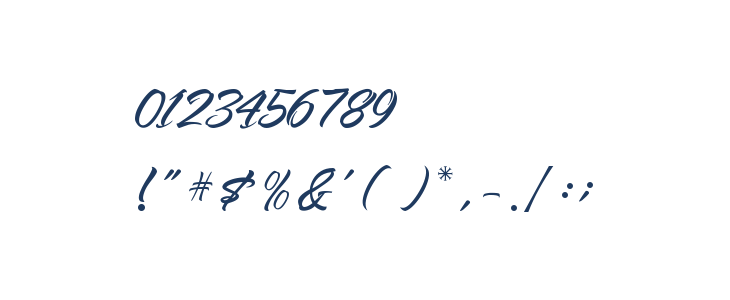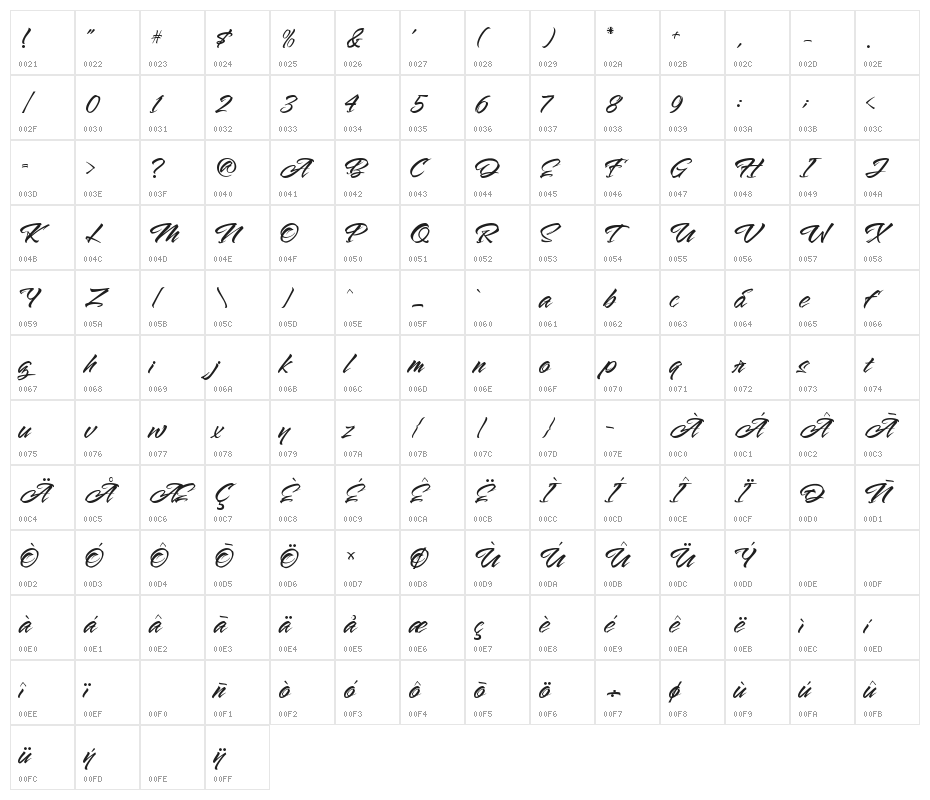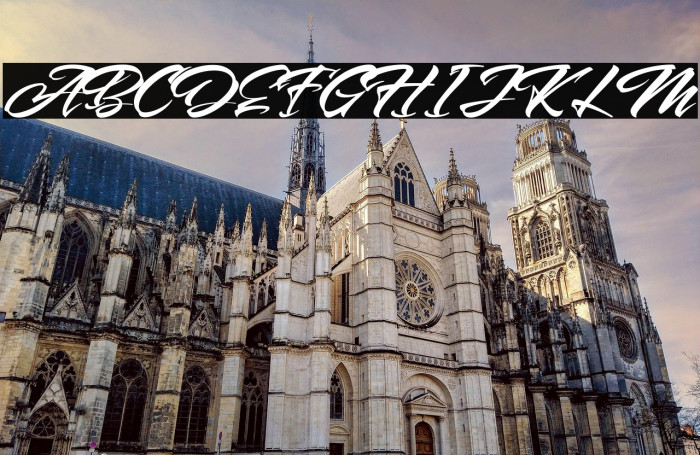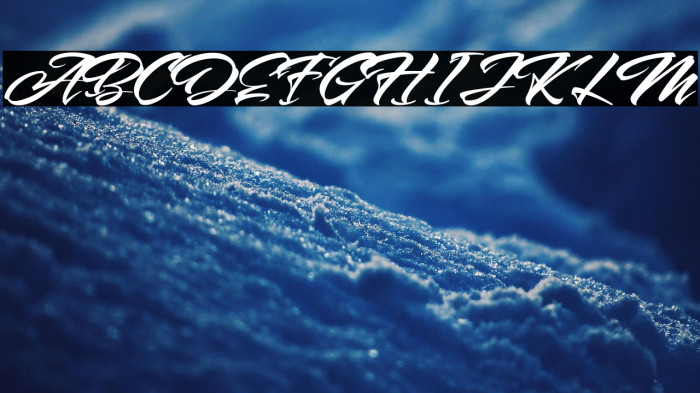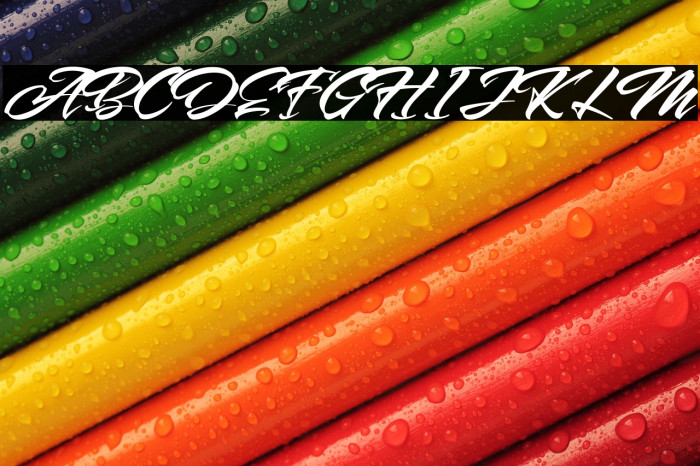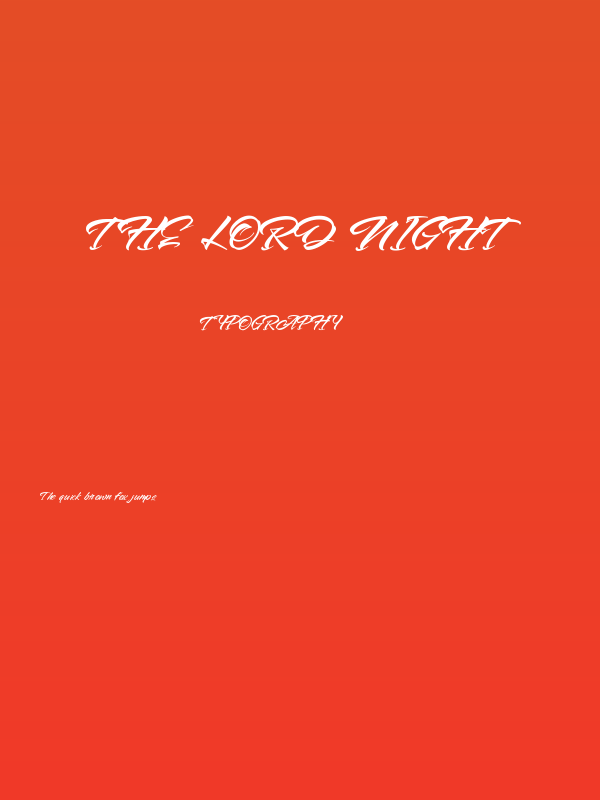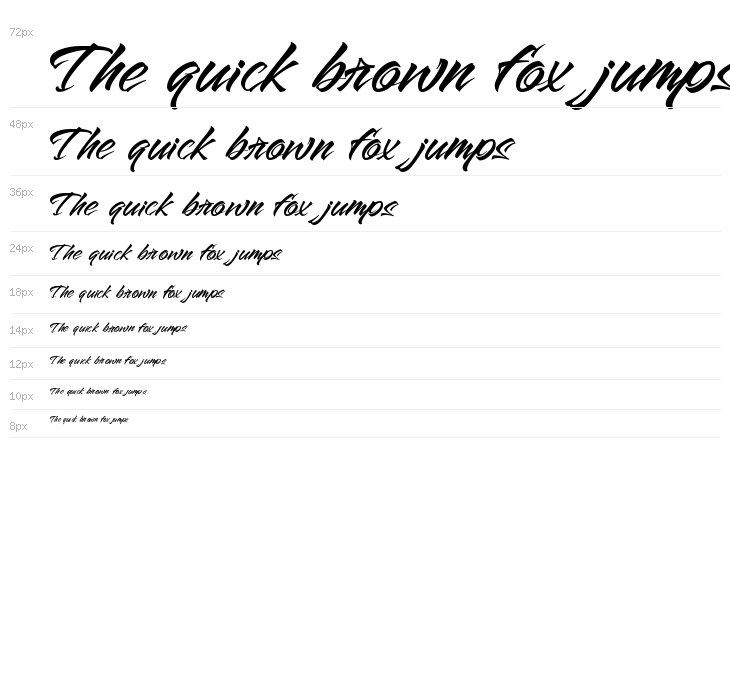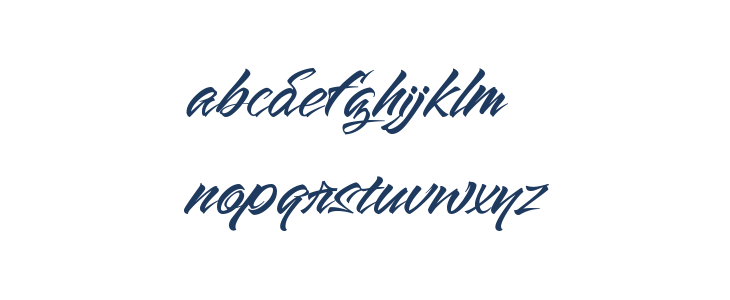
The Lord Night Font
The Lord Night Description
This font exudes a bold and dynamic script style, characterized by its fluid, cursive strokes and elegant flair. The letters are interconnected, creating a seamless flow that mimics natural handwriting. The uppercase letters are particularly striking, with dramatic flourishes and loops that add a sense of movement and sophistication. The lowercase letters maintain the same fluidity, with a slightly more restrained elegance. Numbers and special characters are designed to match the overall aesthetic, ensuring consistency across all text elements. This font is perfect for projects that require a touch of elegance and personality.